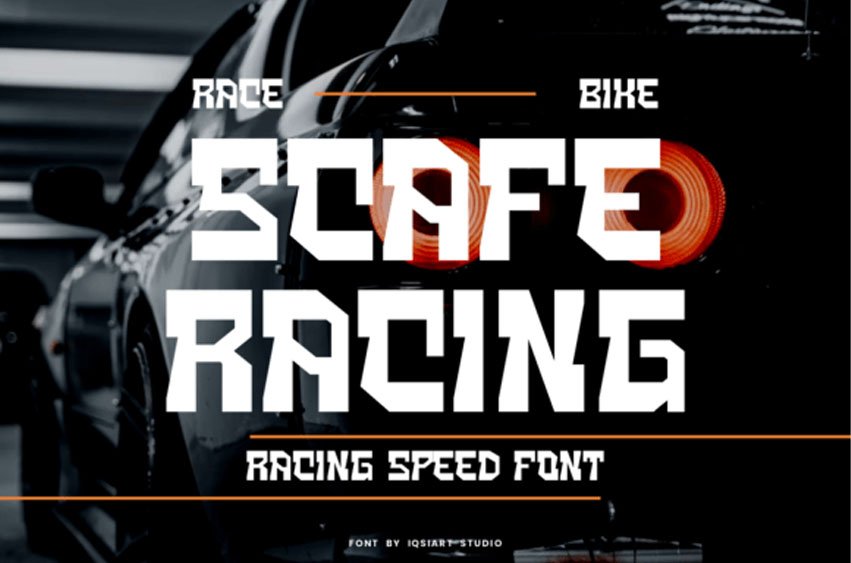
Scafe Racing Font is a bold and assertive font.
No matter the topic, this font will be an incredible asset to your font library, as it has the potential to elevate any creation.